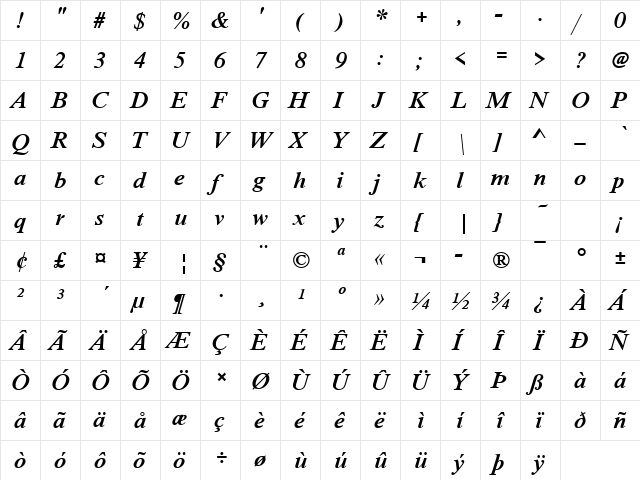
NimbusRomNo9TMed Italic
Design Context for NimbusRomNo9TMed Typeface
NimbusRomNo9TMed takes a measured approach to typography — its balanced proportions and neutral character make it a reliable workhorse for both digital and print work. The slanted form adds forward momentum and visual energy.